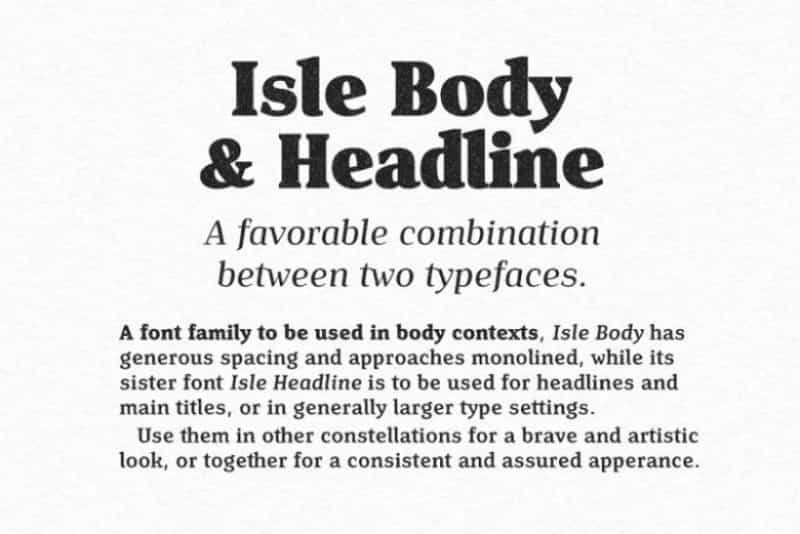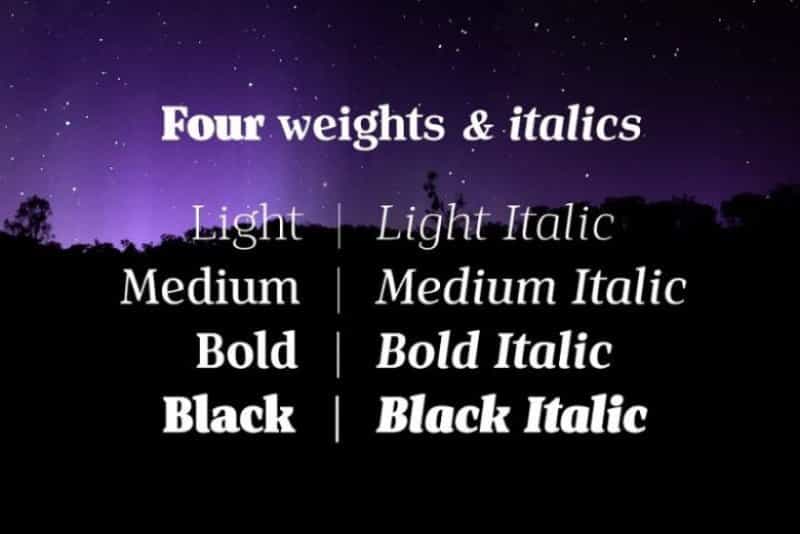
Hello there:) Isle Headline is a header typeface. Isle Headline is a high-quality serif typeface family, drawn by Mans Greback during 2018 and 2019. It is a sharp font with a clear and attentive look, adapted for headlines, titles, and large type settings. It comes in four weights, each one as italic, totaling in eight styles. Light and Light Italic, Medium and Medium Italic, Bold and Bold Italic, Black and Black Italic.